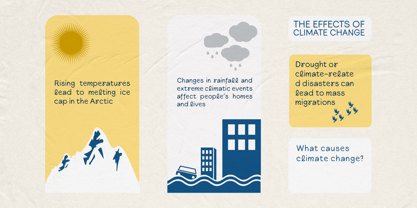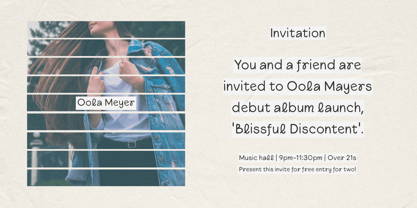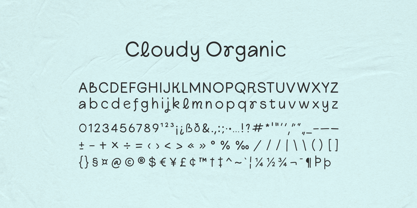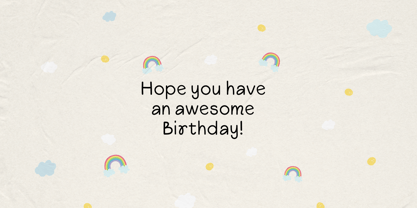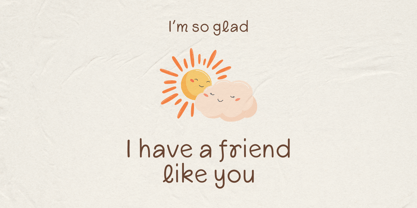
Cloudy Organic
by Jinan Studio
The Cloudy Organic Font Family was designed by Andi Syahdang, Ainun Jinan and published by Jinan Studio. Cloudy Organic contains 1 styles. More about this family
Cloudy Organic is a sweet and playful handwritten font that brings a touch of joy to every project. With its soft, rounded shapes and gentle cursive flow, this font captures the feel of a happy vibes.
Perfectly crafted for children’s designs, quotes, organic branding, packaging, greeting cards, and more. Cloudy Organic adds a charming, friendly personality to your text.
Let your designs shine with a natural and whimsical handwritten touch that feels light, cozy, and oh-so-adorable!
• A set of uppercase and lowercase glyphs
• Number, symbol, and punctuation